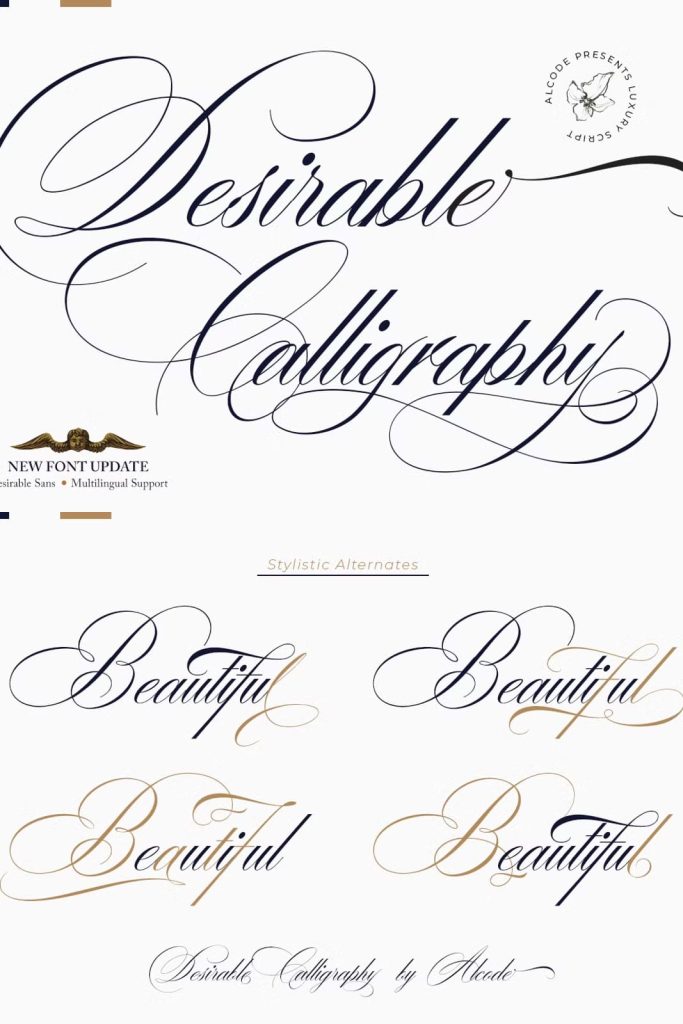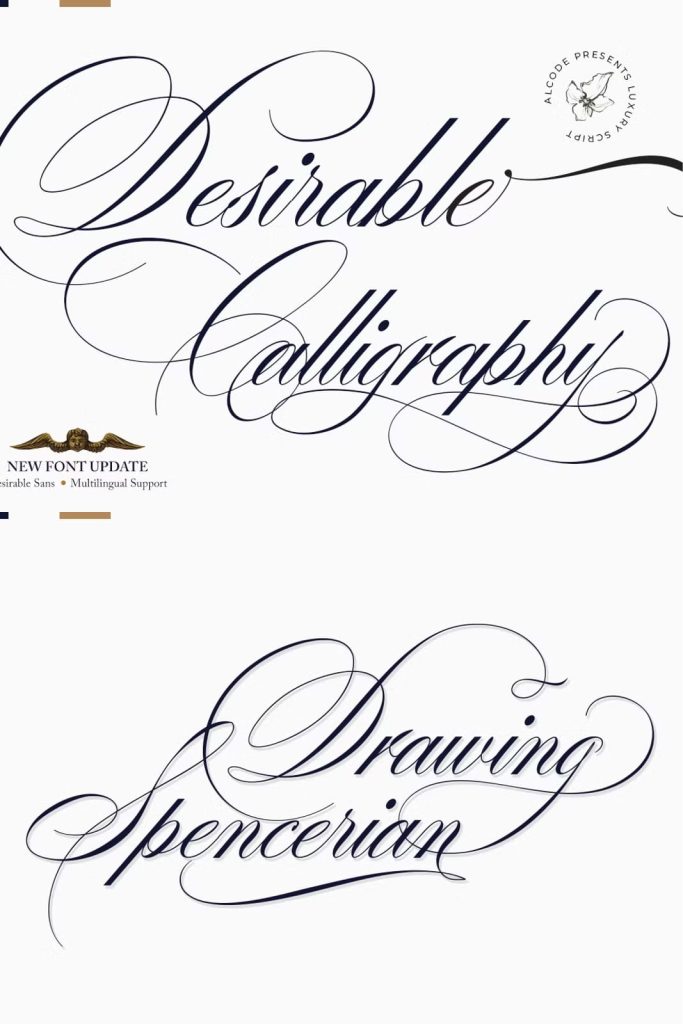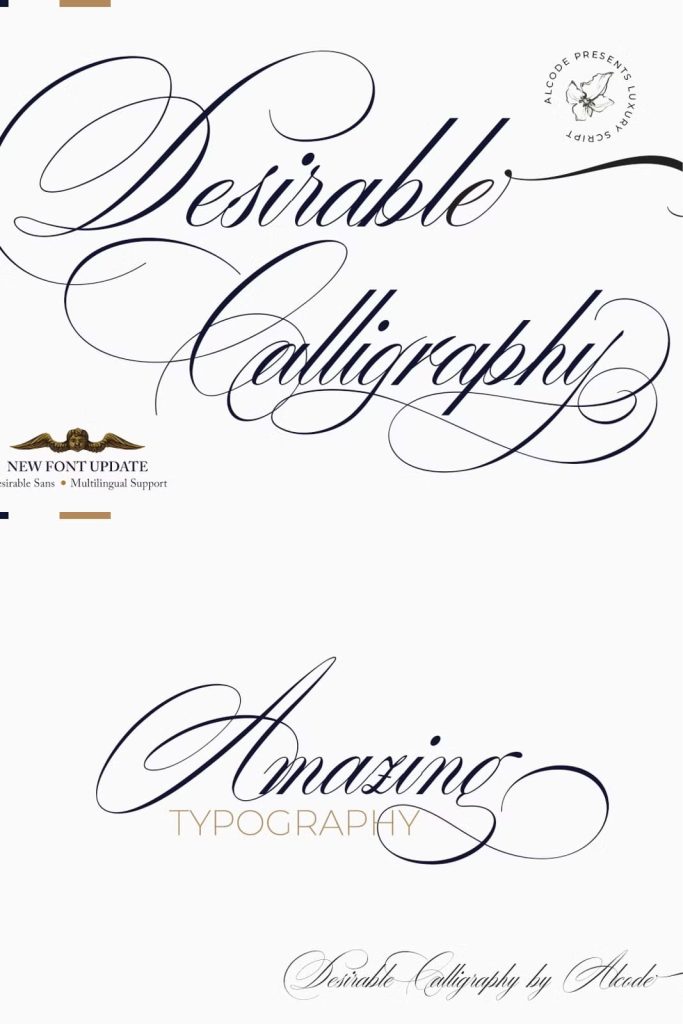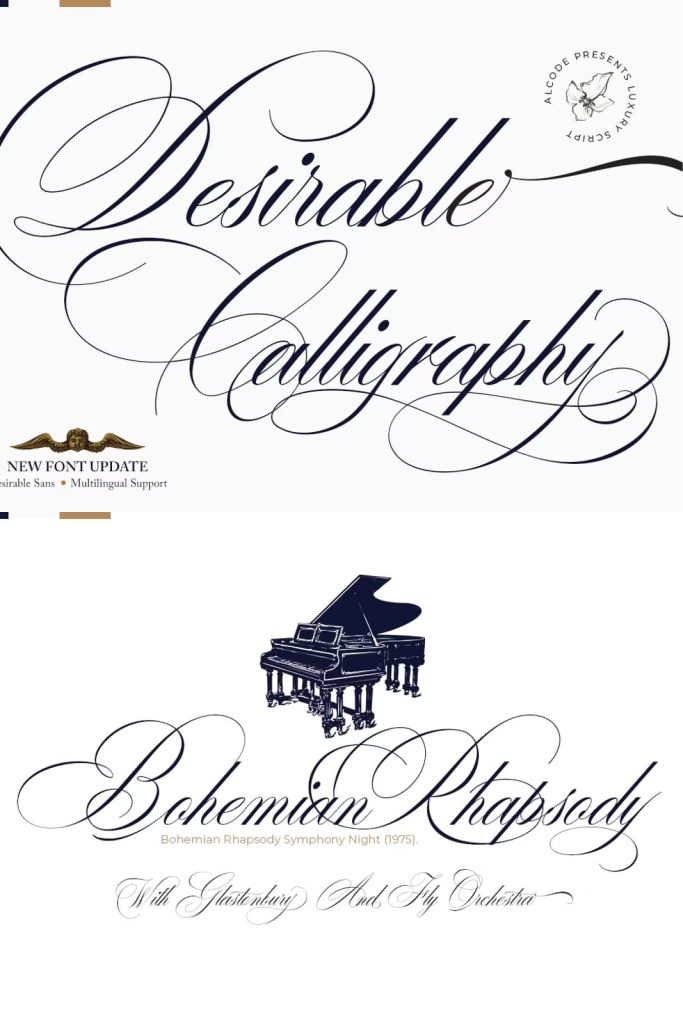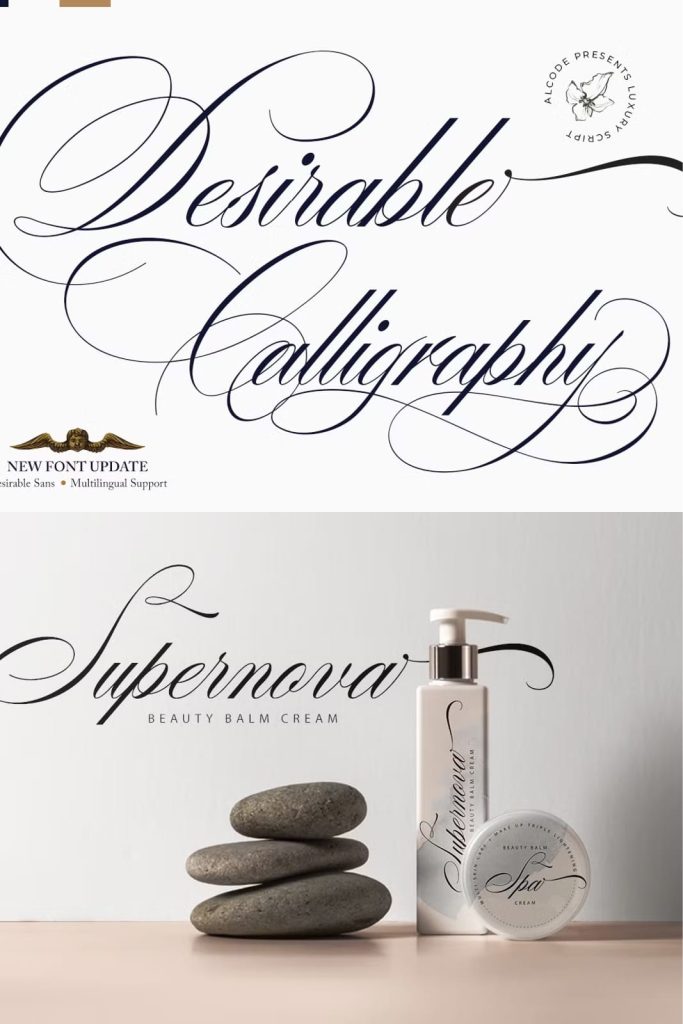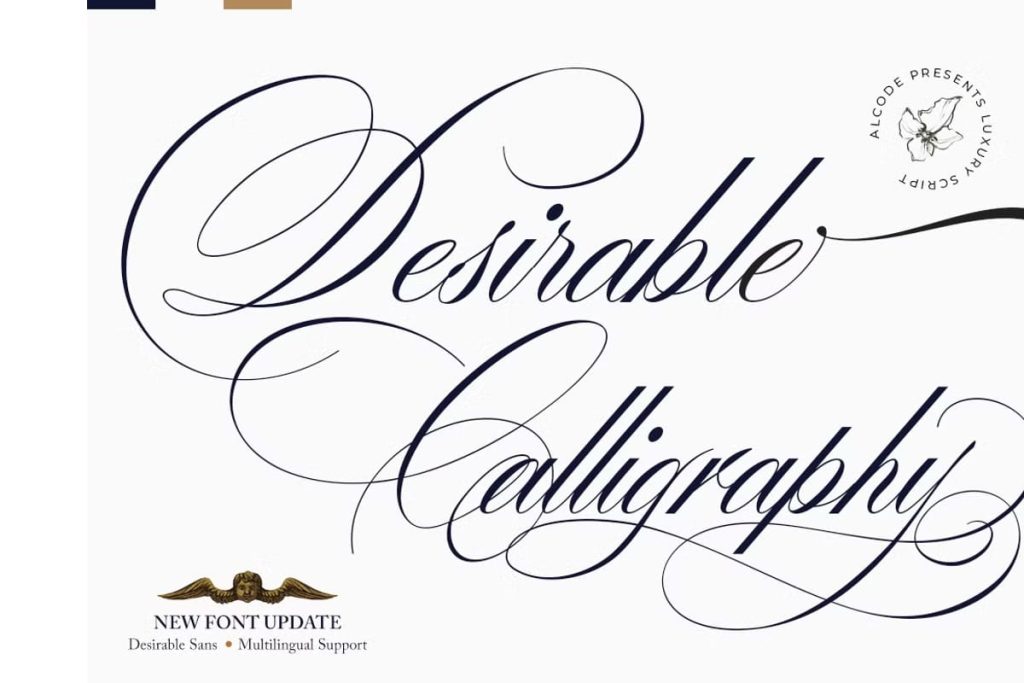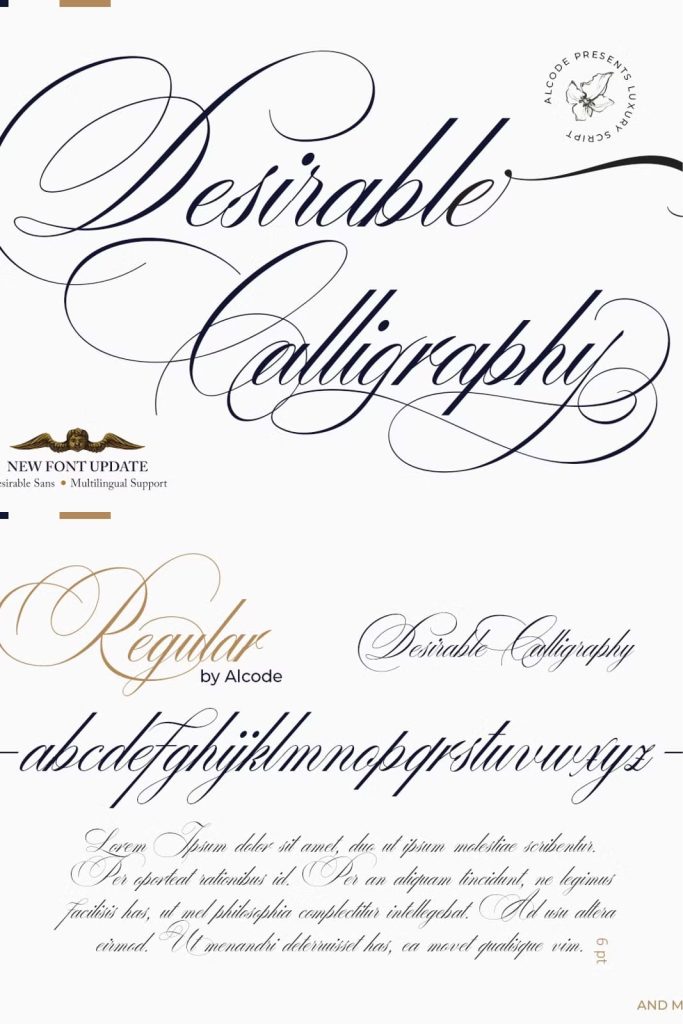
The Desirable calligraphy is calligraphy font with a classic style and a touch of elegance, inspired by the handwriting of Italian women and ancient manuscripts. Carefully designed to work together in harmony that makes it very suitable for wedding media, book covers, greeting cards, logos, branding, business cards and certificates, even for any design work that requires a classic, formal or luxurious.